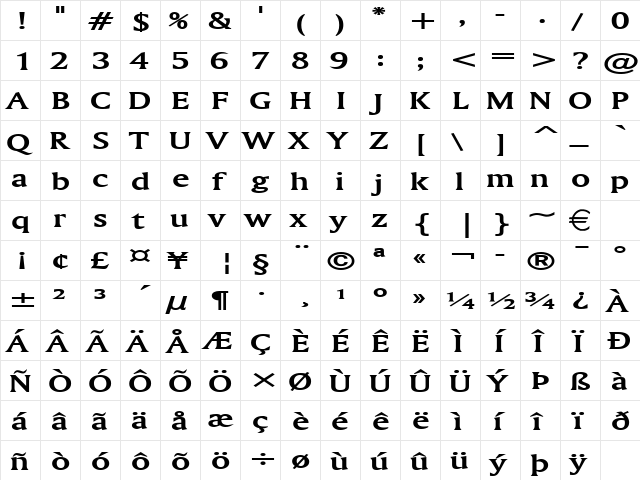
AmerettoExtended Bold Font Preview
AmerettoExtended Bold
AmerettoExtended Bold Font Details
Design Context for AmerettoExtended Typeface
AmerettoExtended takes a measured approach to typography — its balanced proportions and neutral character make it a reliable workhorse for both digital and print work. Its bold stroke weight gives it real presence on the page.